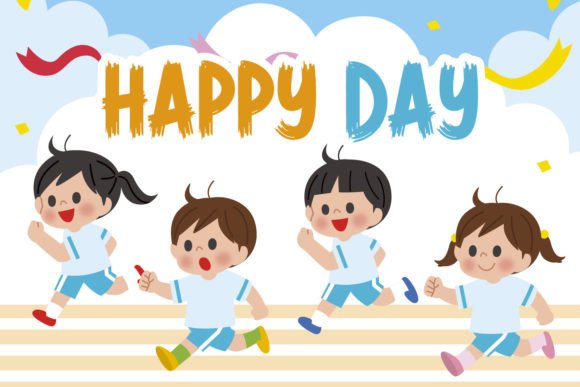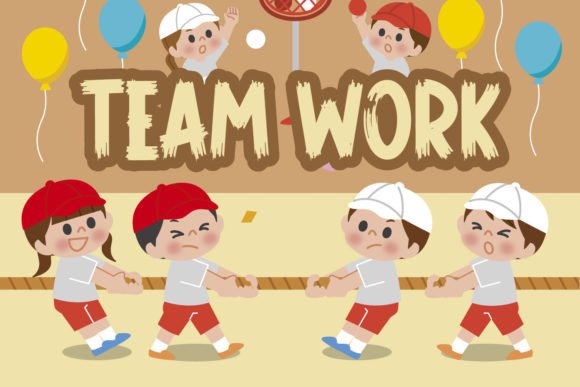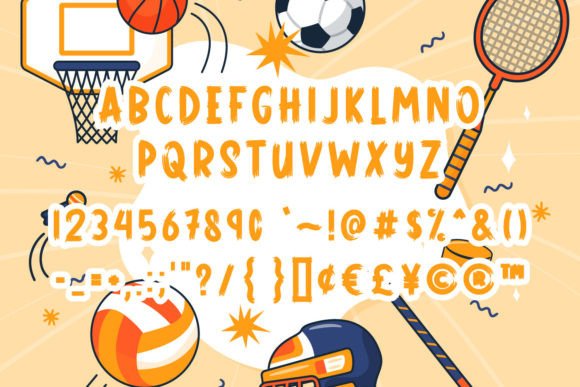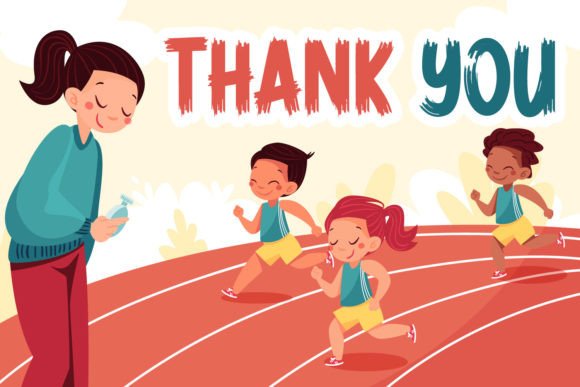
Introducing Comic Sporty Font: The Perfect Choice for Fun and Playful Designs
Are you a designer or crafter looking for a font that embodies playfulness and authenticity? Look no further than Comic Sporty Font! This cute and friendly display font is perfect for any children’s activity or elementary school design. In this article, we’ll take a closer look at Comic Sporty Font and explore its features, benefits, and uses.
What is Comic Sporty Font?
Comic Sporty Font is a display font designed to bring a sense of fun and playfulness to your designs. Its cute and friendly appearance makes it perfect for use in children’s activity books, elementary school designs, and other projects where a youthful and energetic vibe is desired.
Key Features of Comic Sporty Font
So, what makes Comic Sporty Font so special? Here are some of its key features:
- Playful and Authentic: Comic Sporty Font embodies the spirit of playfulness and authenticity, making it perfect for designs that require a fun and youthful approach.
- Cute and Friendly: The font’s cute and friendly appearance makes it perfect for use in children’s designs, such as activity books, coloring books, and educational materials.
- Display Font: Comic Sporty Font is a display font, designed to make a statement in your designs. It’s perfect for use in headlines, titles, and other prominent text elements.
- Easy to Read: Despite its playful appearance, Comic Sporty Font is easy to read, making it perfect for use in designs where clarity is important.
Benefits of Using Comic Sporty Font
So, why should you choose Comic Sporty Font for your designs? Here are some of the benefits of using this font:
- Adds a Touch of Playfulness: Comic Sporty Font adds a touch of playfulness to your designs, making them more engaging and fun for your audience.
- Perfect for Children’s Designs: The font’s cute and friendly appearance makes it perfect for use in children’s designs, such as activity books, coloring books, and educational materials.
- Easy to Pair with Other Fonts: Comic Sporty Font is easy to pair with other fonts, making it versatile and flexible for use in a variety of designs.
- High-Quality Design: Comic Sporty Font is designed to high standards, ensuring that your designs look professional and polished.
Uses of Comic Sporty Font
So, what can you use Comic Sporty Font for? Here are some ideas:
- Children’s Activity Books: Comic Sporty Font is perfect for use in children’s activity books, such as coloring books, puzzle books, and workbooks.
- Elementary School Designs: The font is also perfect for use in elementary school designs, such as posters, flyers, and educational materials.
- Crafting and DIY Projects: Comic Sporty Font can be used in crafting and DIY projects, such as scrapbooking, card making, and paper crafting.
- Digital Designs: The font can also be used in digital designs, such as social media graphics, blog posts, and website headers.
In conclusion, Comic Sporty Font is a cute and friendly display font that embodies playfulness and authenticity. Its key features, benefits, and uses make it the perfect choice for designers and crafters looking for a fun and youthful font for their designs. Whether you’re creating children’s activity books, elementary school designs, or crafting and DIY projects, Comic Sporty Font is sure to add a touch of playfulness and fun to your designs.